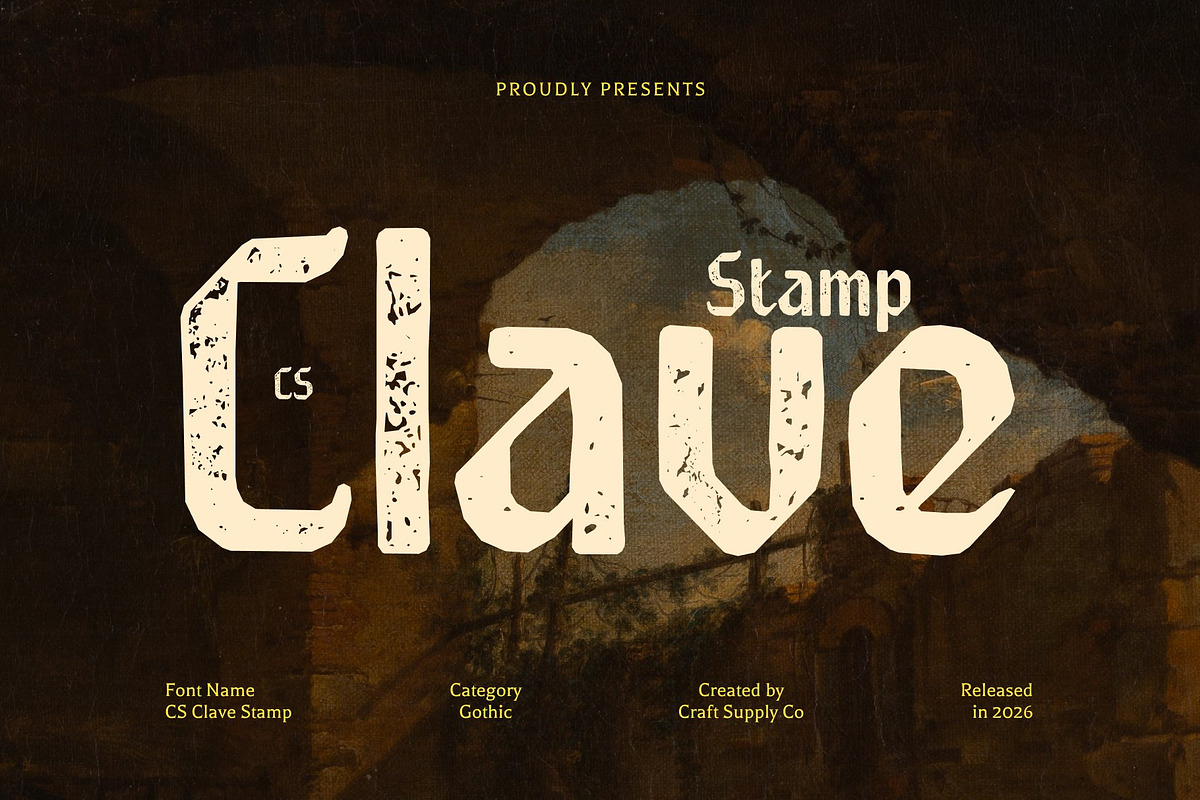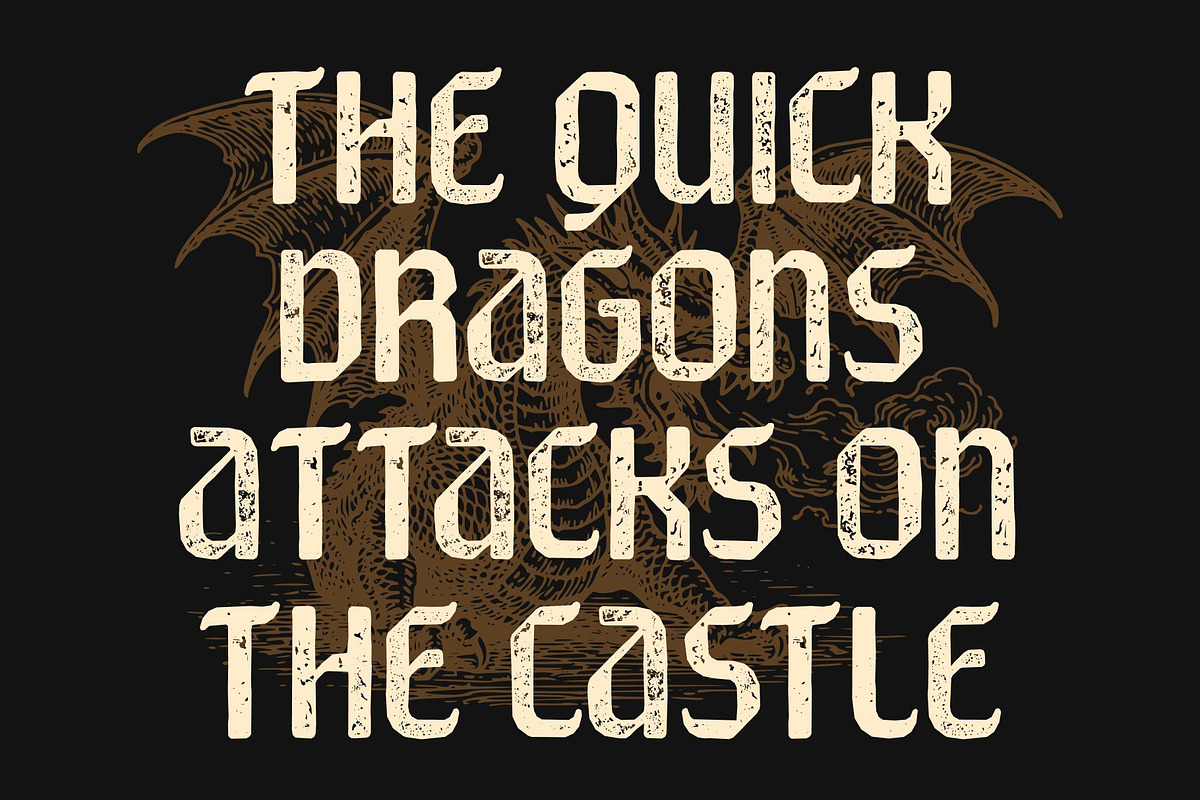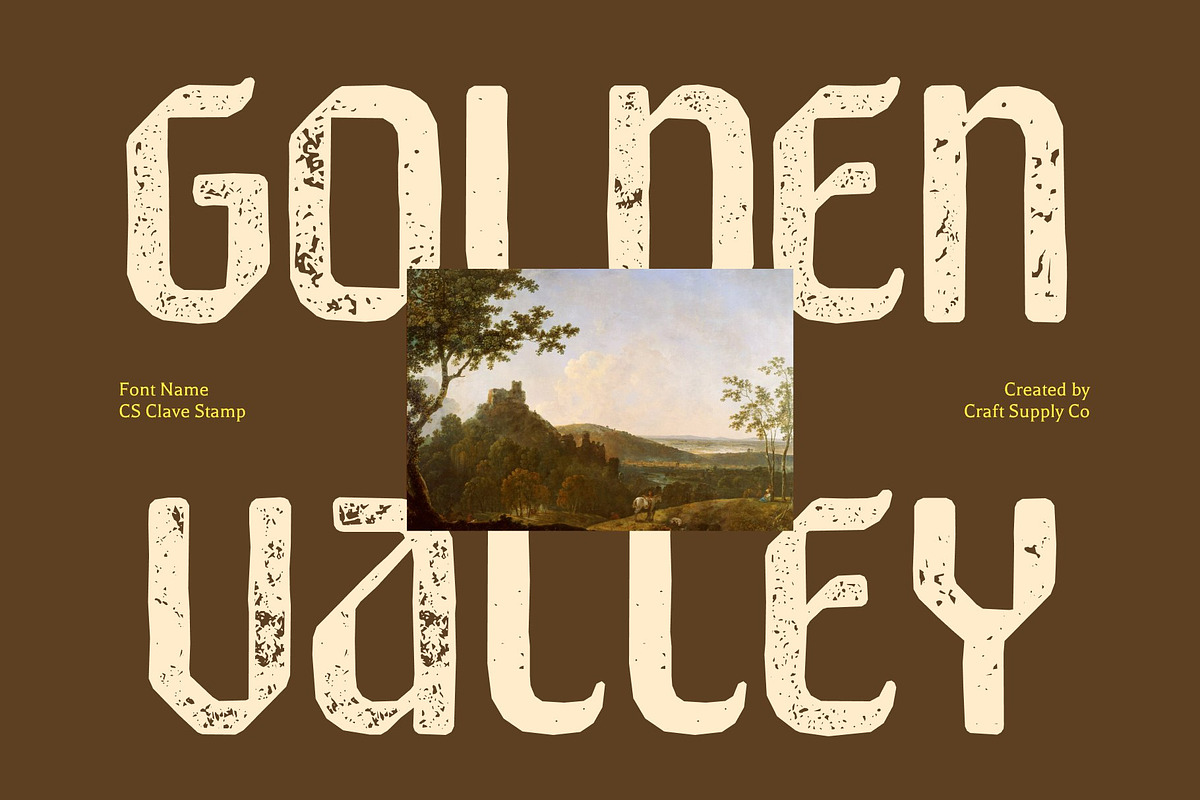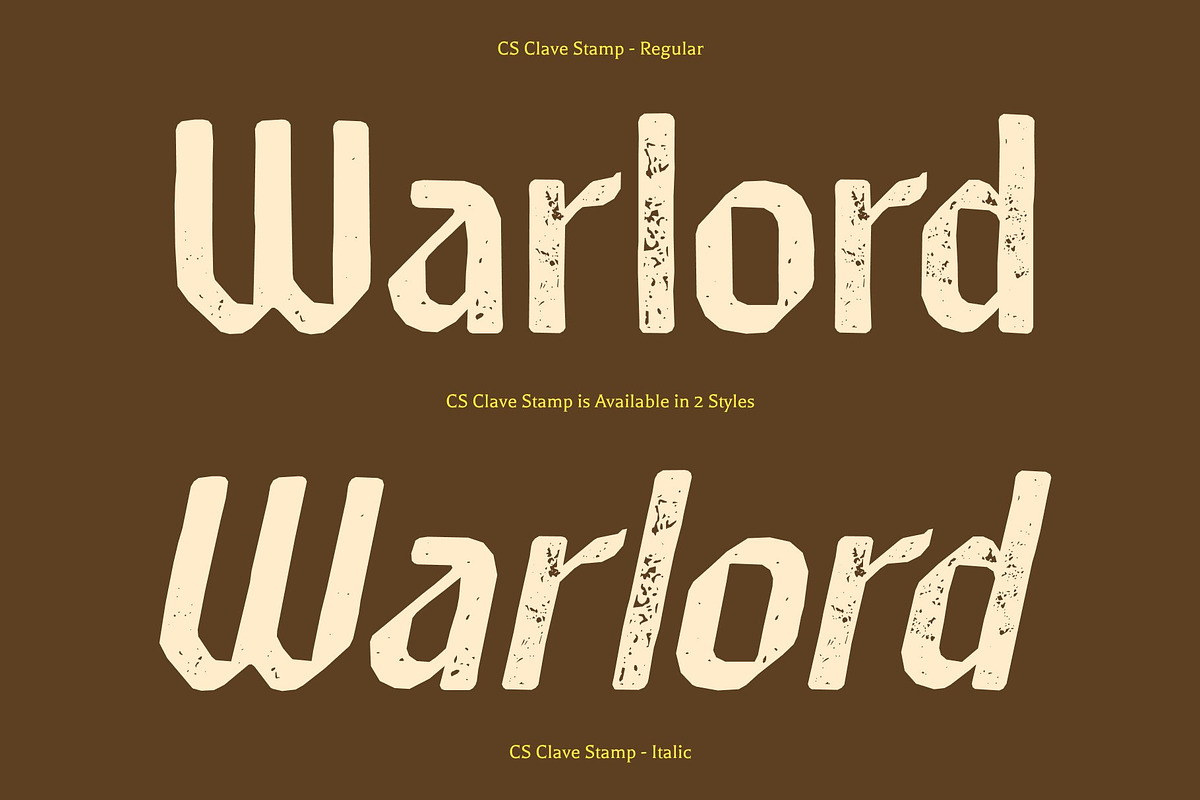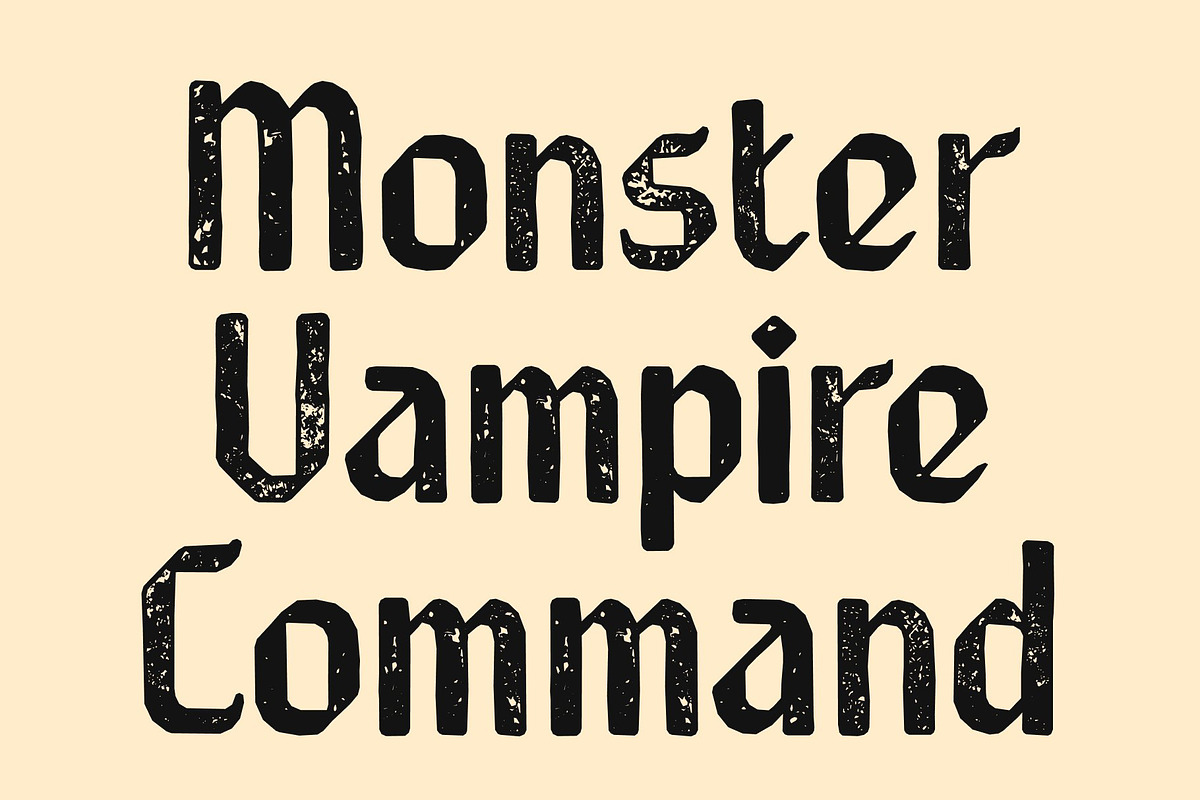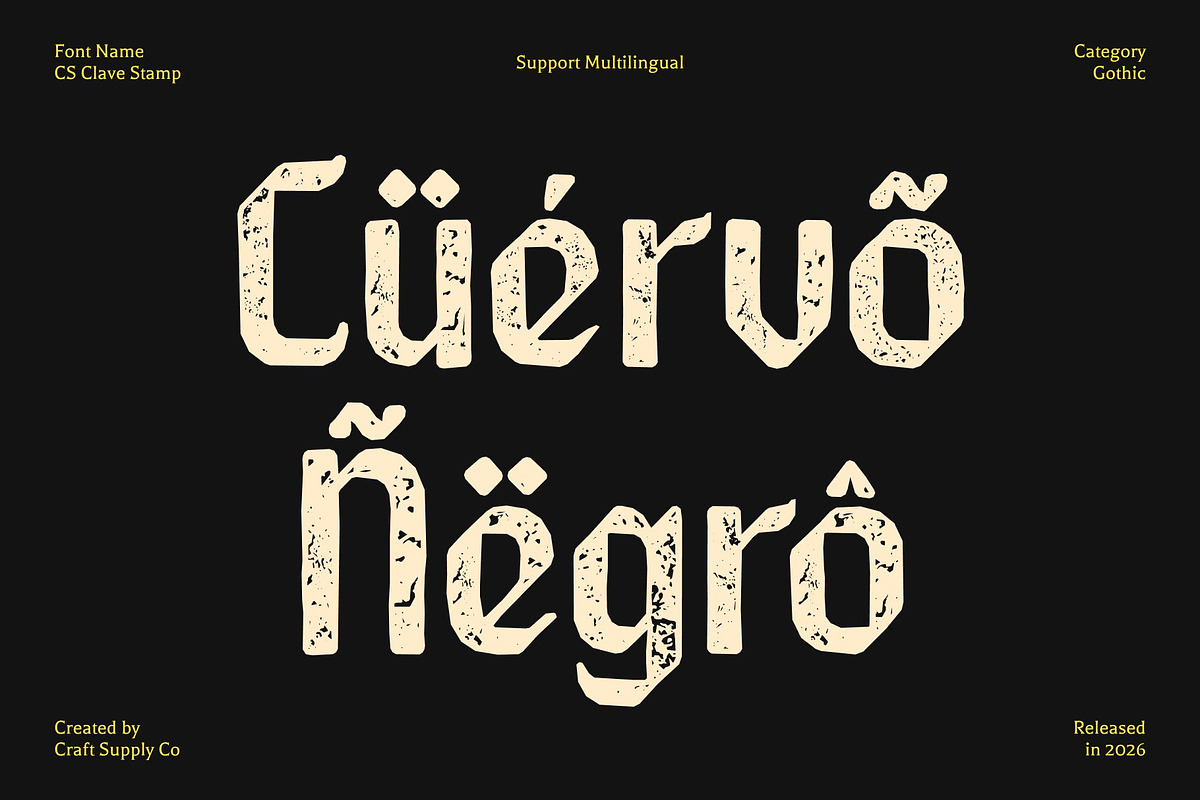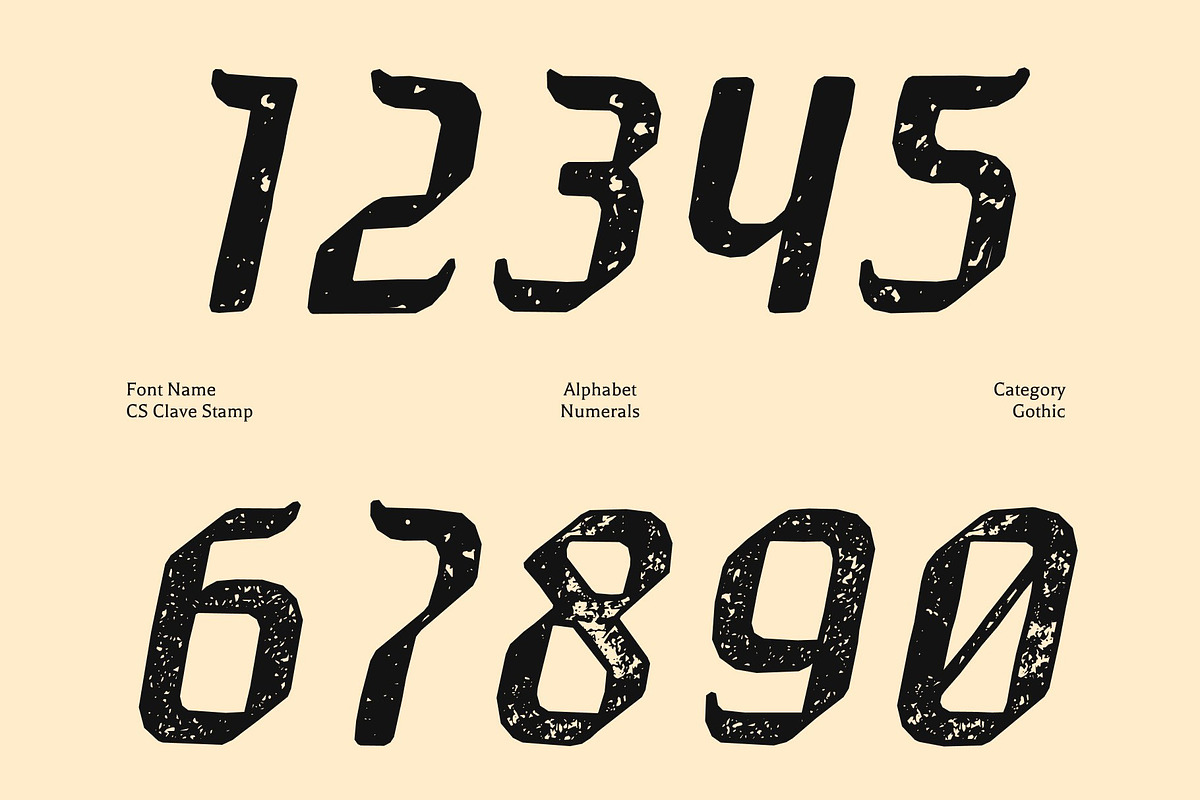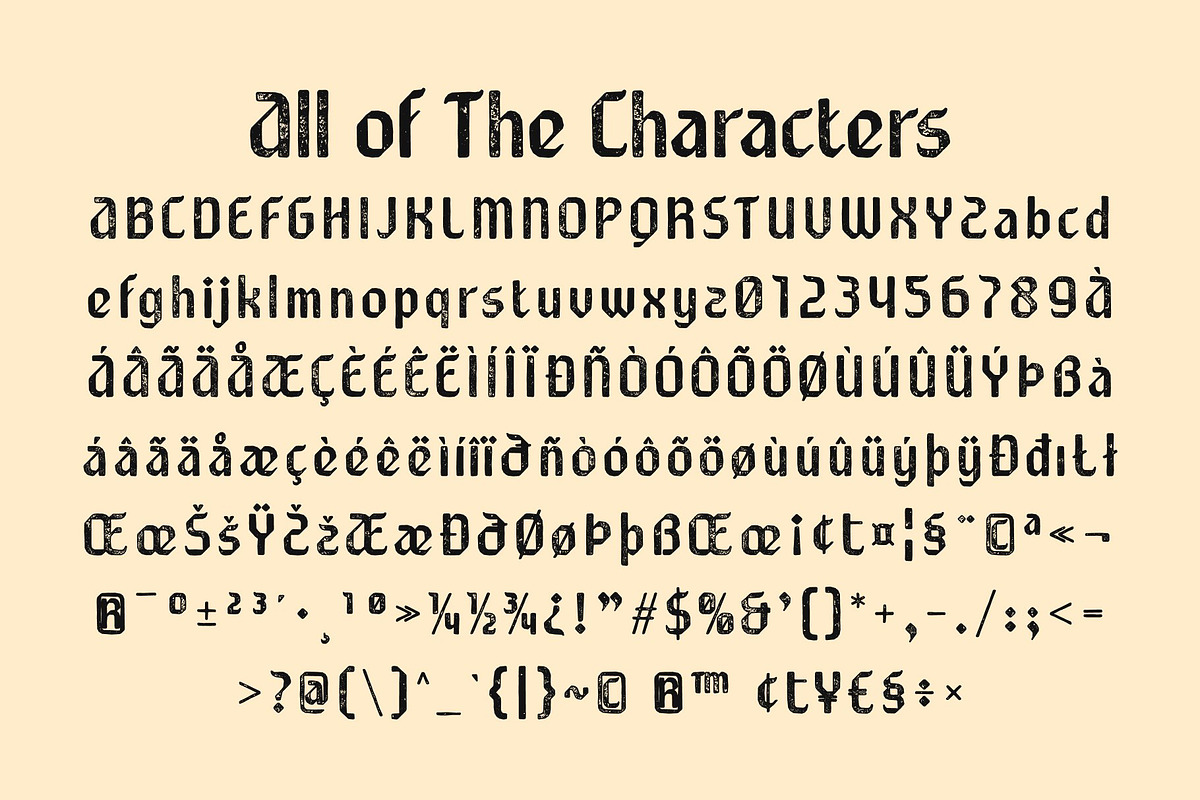
CS Clave Stamp
CS Clave Stamp – Gothic Modernity with Vintage Texture
Modern Sans Serif with Gothic Influence This is a modern sans-serif font that fuses the sharp elegance of Gothic design with clean, contemporary geometry. Its angular shapes and precise construction create a bold, futuristic look while retaining subtle Gothic characteristics that add depth and uniqueness. Enhanced with a stamp effect, the font gains a textured, slightly distressed finish that introduces a vintage, handcrafted feel.
Geometric Precision with Textured Character The structured forms and sharp angles provide strong clarity and visual impact, making the font highly legible and striking. The stamp effect adds ink-like imperfections and worn edges, softening the rigidity of the geometry and creating a balance between digital precision and analog texture.
Fusion of Tradition and Futurism This font bridges historical Gothic influence with modern minimalist design. This duality results in a typeface that feels both timeless and forward-thinking, offering a distinctive aesthetic that stands out in contemporary visual communication.
Perfect for Bold and Stylish Design Applications Ideal for branding, posters, editorial layouts, technology visuals, and creative campaigns, delivers a unique combination of Gothic charm and modern clarity. Its blend of futuristic structure and vintage stamp texture creates a powerful typographic voice that is stylish, expressive, and visually memorable.
CS Clave Stamp Regular
CS Clave Stamp Italic